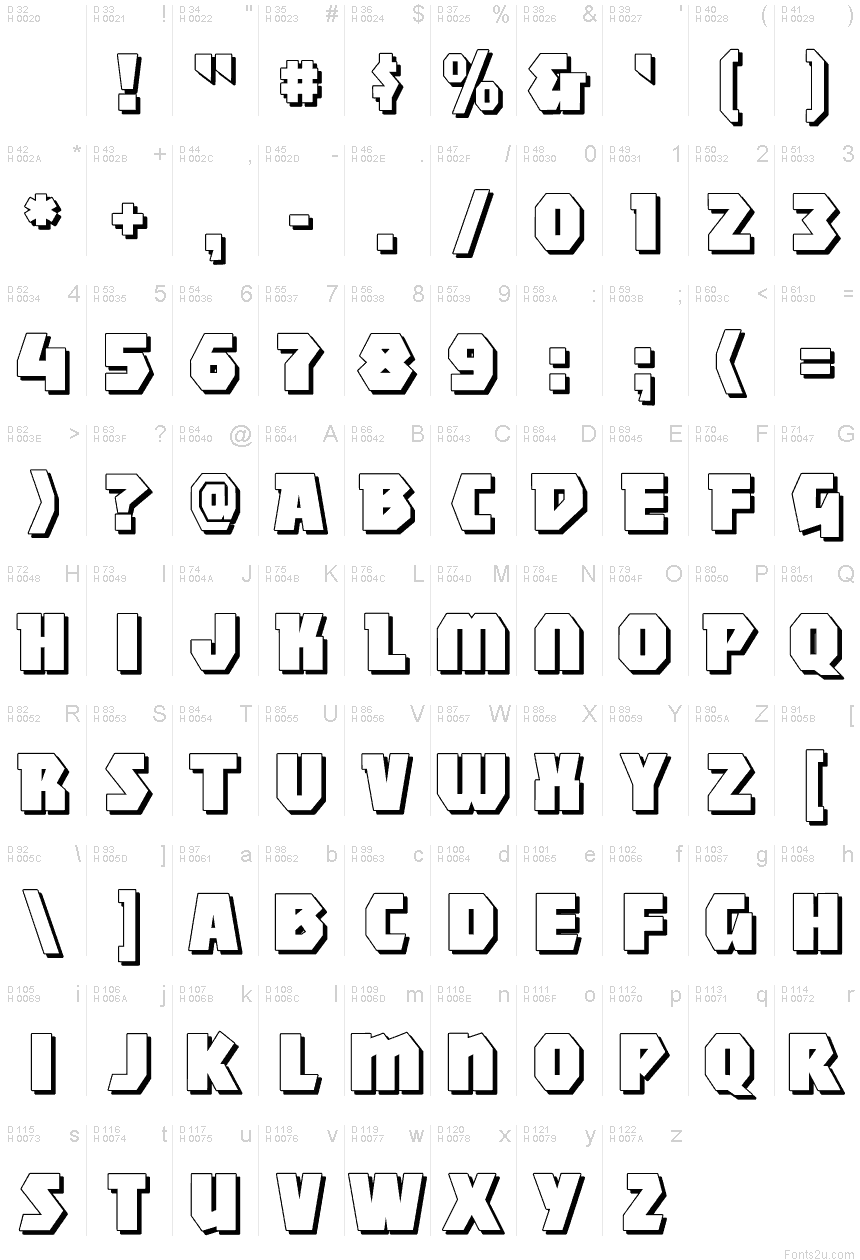
MightyShadowBlack
Mighty Shadow Black font by M. Klein - Fonteria is a free old school display font with chunky block shapes, sharp angled cuts, and a hard offset shadow that gives the letters a stacked, postered look. The letterforms feel squared off and compressed, with flat tops and deep black backing that makes the face read like a classic arcade title treatment.
Mighty Shadow Black works well for poster headers, game graphics, album art, event flyers, sports graphics, and retro logo design because the shadow layer gives each word a strong cutout edge. This free font brings a straightforward vintage print feel to projects that need a loud title, a badge-style mark, or a stylized text treatment with a little depth.